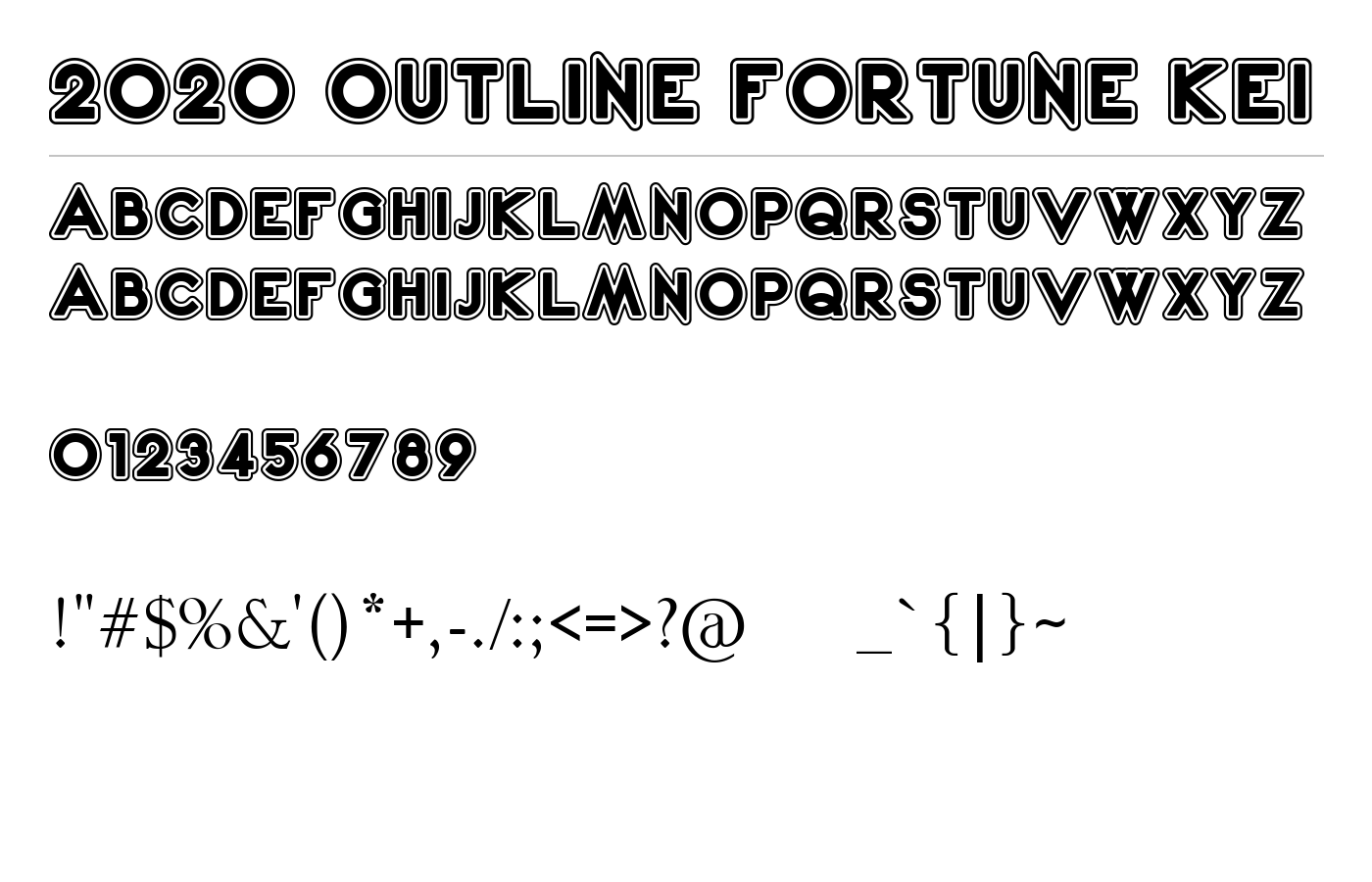
2020 Outline Fortune Kei is a bold, playful sans serif font with a distinct outlined style that creates a fun, modern feel. Its rounded, geometric letterforms with consistent weight and clear readability make it perfect for eye-catching headlines, logos, and youthful branding that needs a vibrant, dynamic look. This font works well where a lively and approachable atmosphere is desired.
2020 Outline Fortune Kei Font
About 2020 Outline Fortune Kei Font